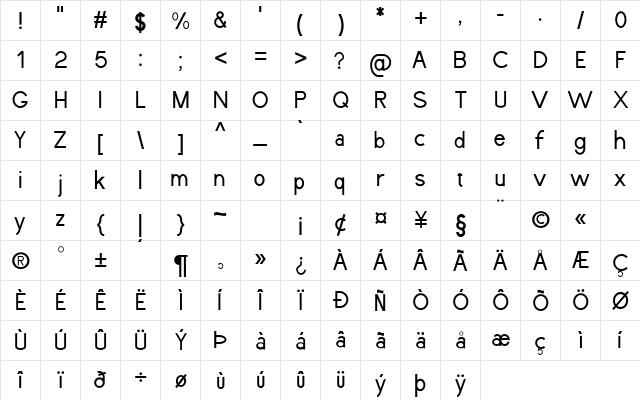
Manun Regular Font Preview
Manun Regular
Manun Regular Font Details
| Designer | Amru ID |
Design Context for Manun Typeface
Manun takes a measured approach to typography — its balanced proportions and neutral character make it a reliable workhorse for both digital and print work.